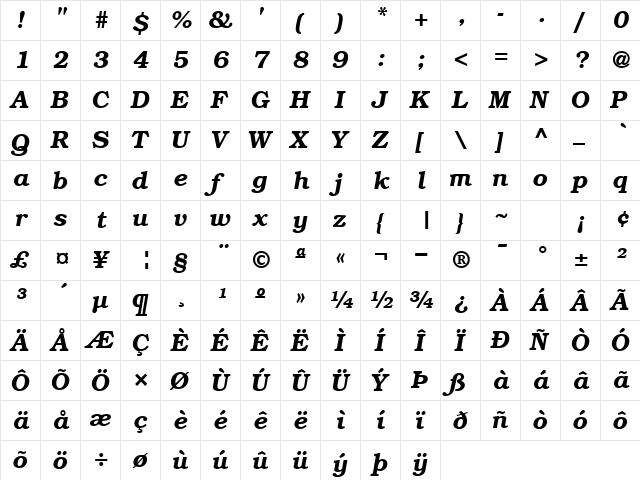
Bookwoman DemiItalicSH
Design Context for Bookwoman Typeface
Bookwoman is a composed and adaptable typeface that performs quietly and consistently across a wide range of design contexts. The slanted form adds forward momentum and visual energy.
Pro Tip: Try Bookwoman for annotation and caption copy alongside an upright companion — the contrast in angle creates a dynamic but ordered typographic system.